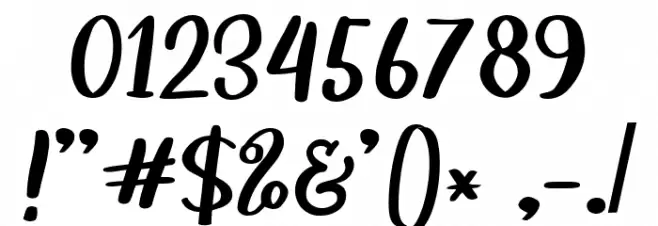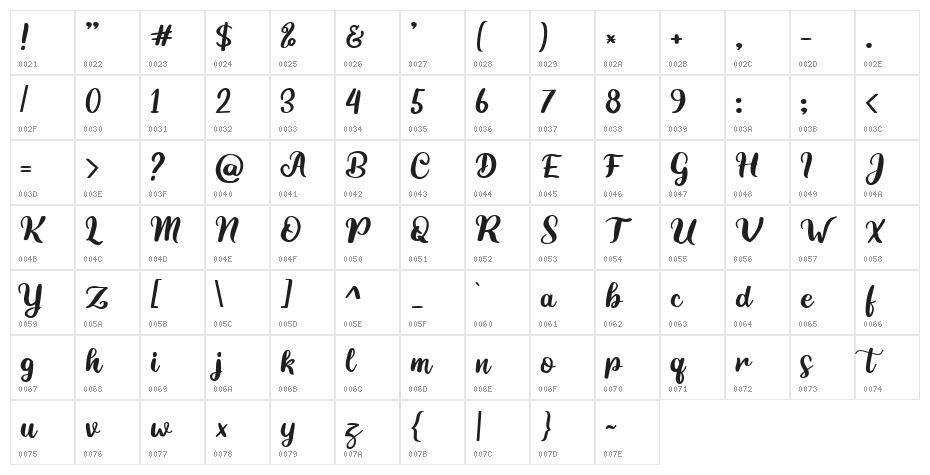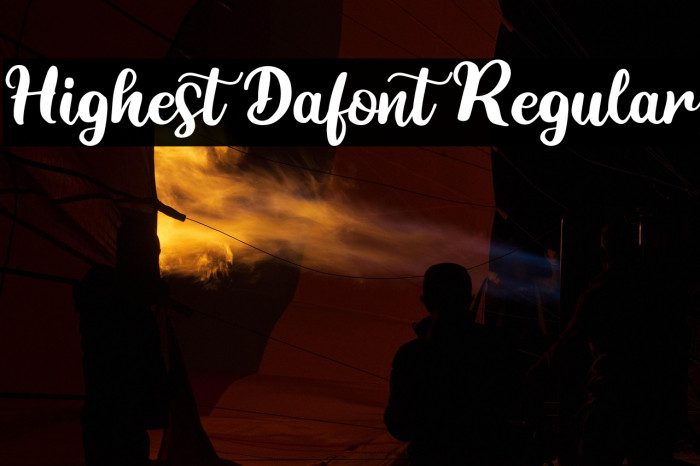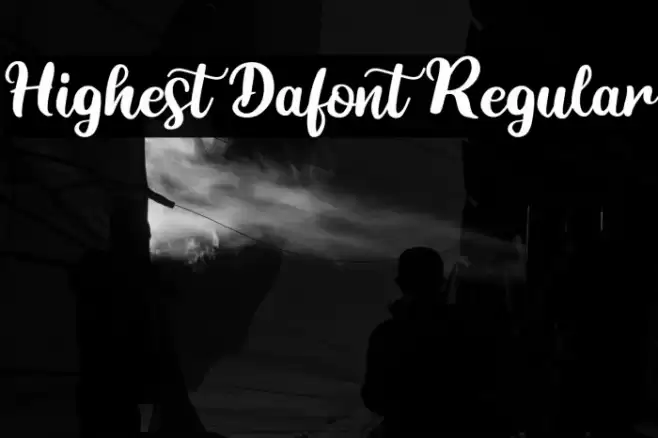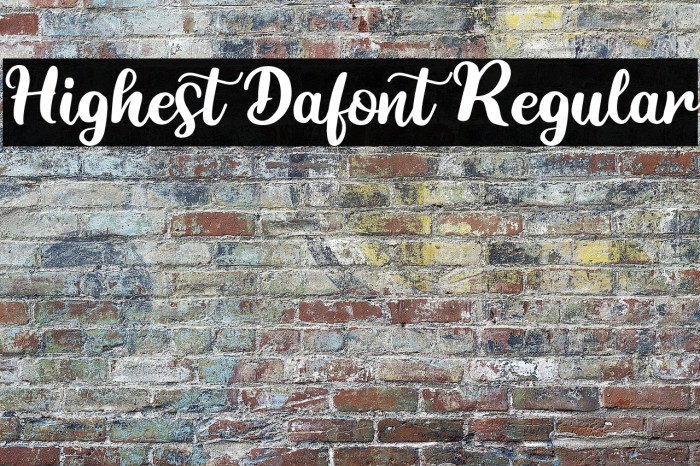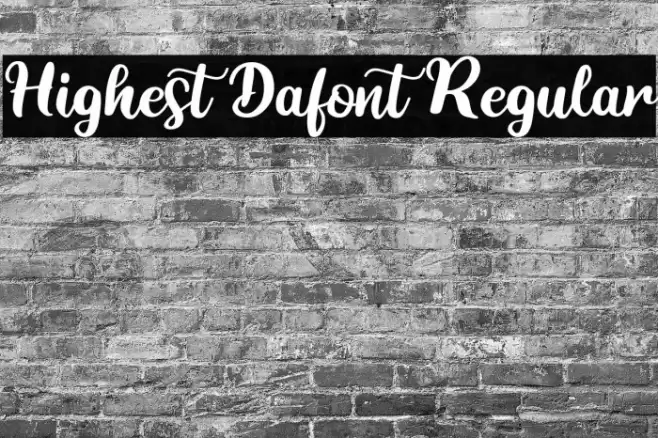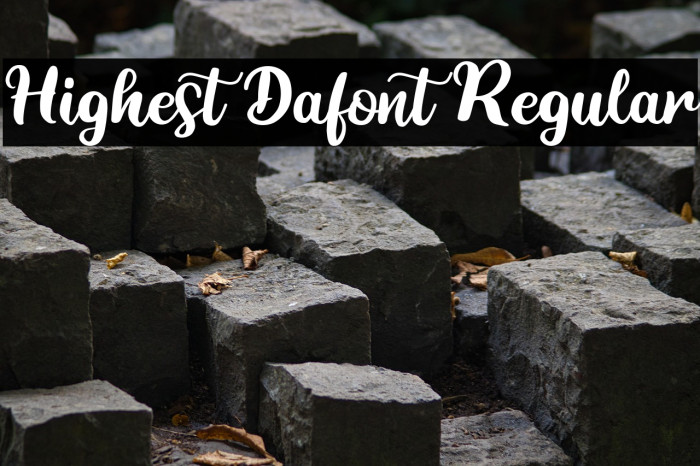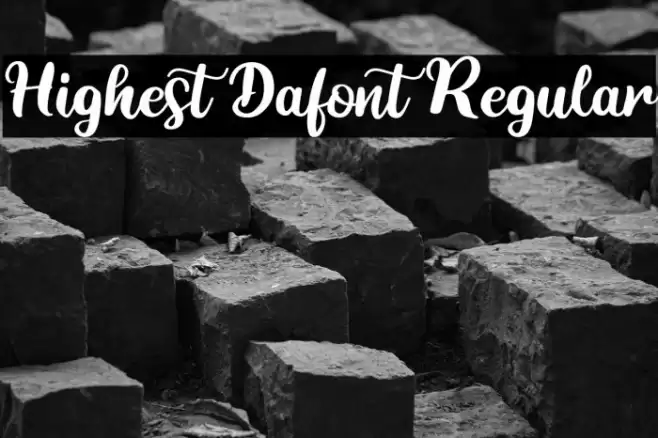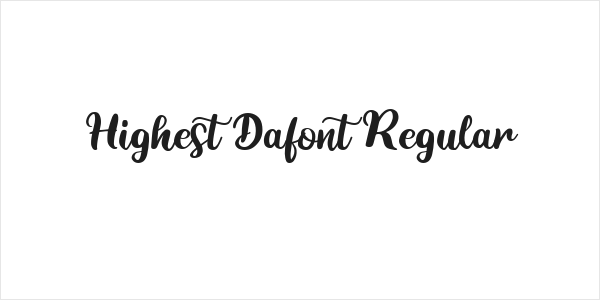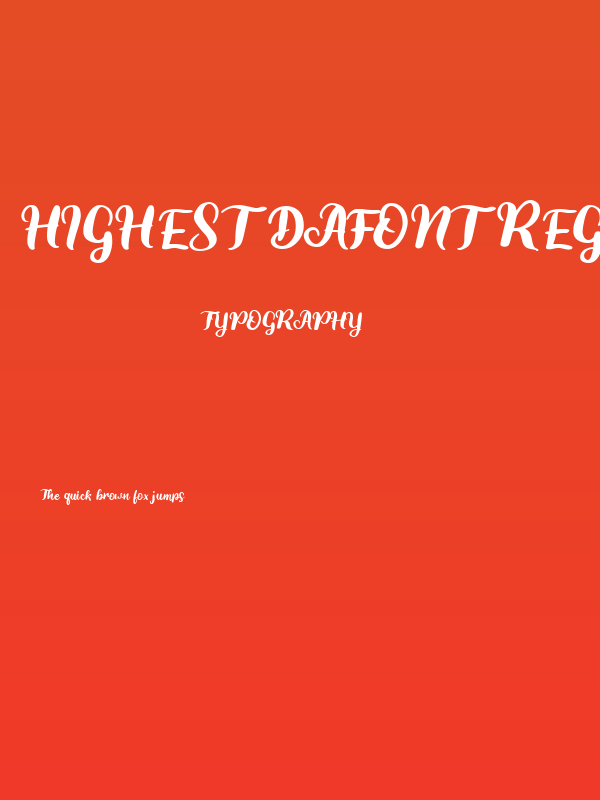
Highest Dafont Regular Font
Highest Dafont Regular Description
This font features a bold and expressive script style, characterized by its flowing, cursive letterforms. The uppercase letters are elegantly designed with sweeping curves and loops, giving a sense of movement and fluidity. The lowercase letters maintain a consistent style, with smooth connections between characters, enhancing readability while preserving an artistic flair. The numerals are equally stylized, matching the overall aesthetic with their rounded and dynamic shapes. Special characters are thoughtfully integrated, ensuring versatility in various design contexts. This font exudes a playful yet sophisticated vibe, making it suitable for creative projects.